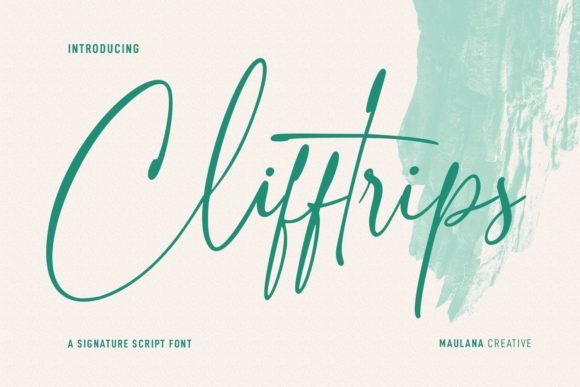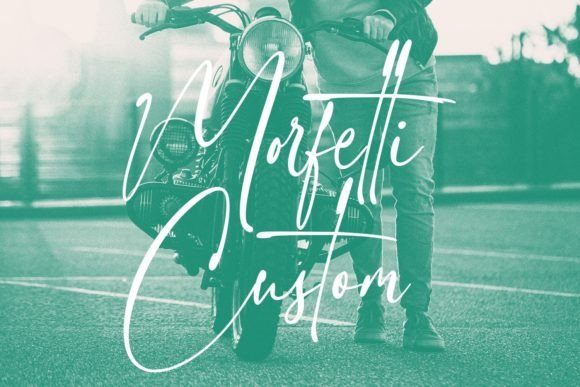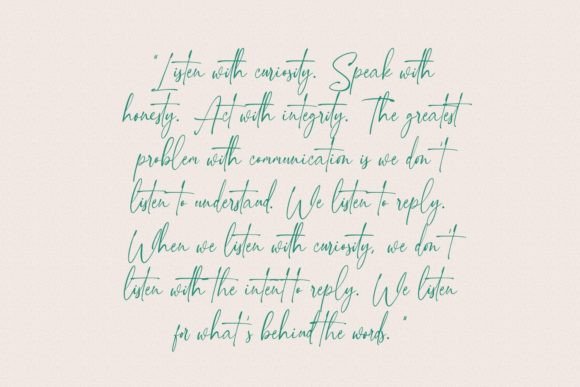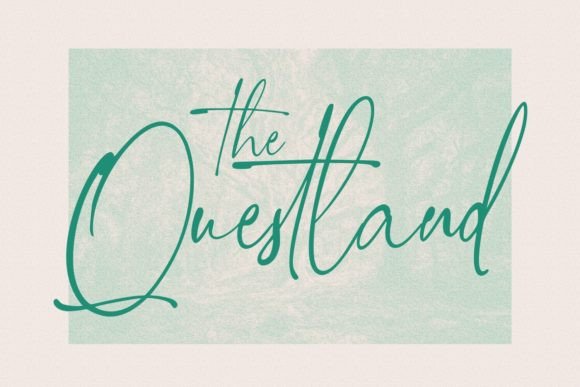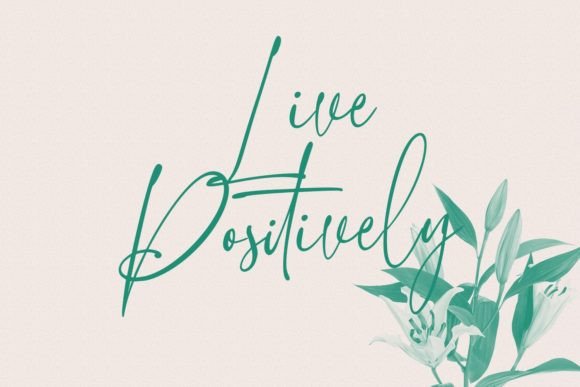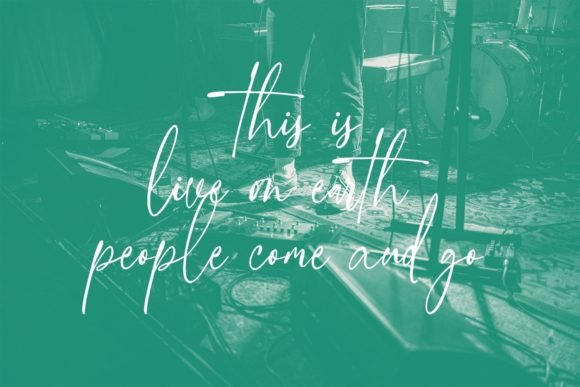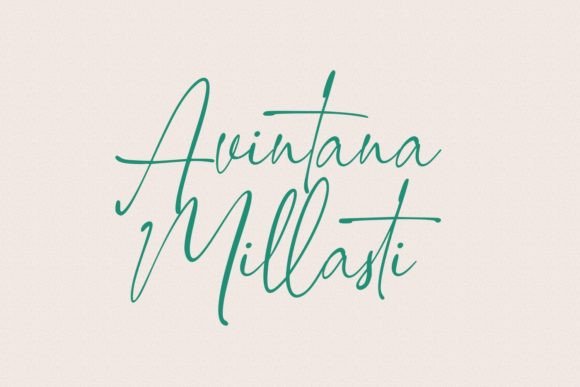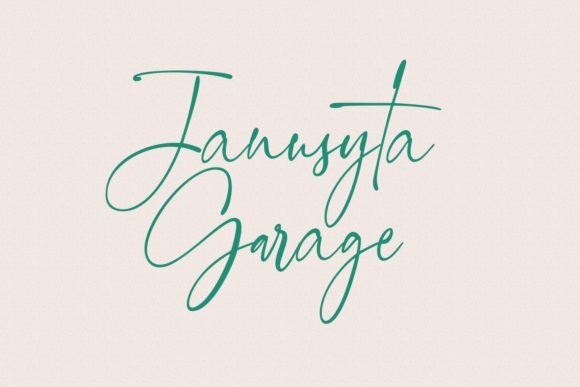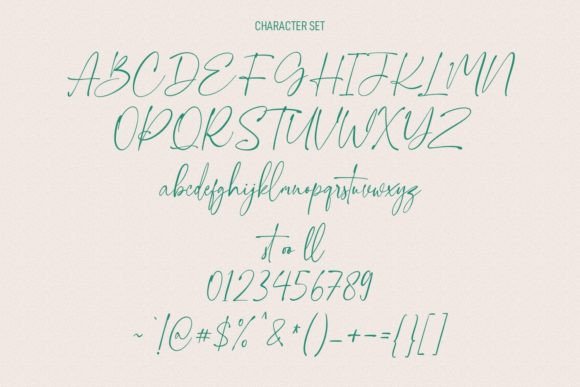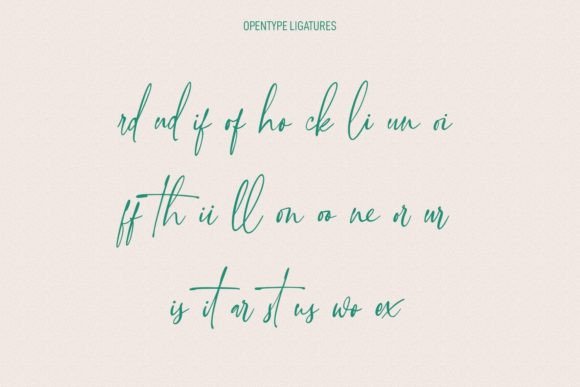
Clifftrips Font
About Clifftrips Font
Clifftons is a casual signature script font designed to bring a laid-back and personal touch to your projects. With its ink-light contrast stroke, playful characters, and thoughtful ligatures and alternates, this font is a versatile choice for a range of applications. Clifftons is particularly well-suited for logo design, social media graphics, movie titles, book titles, and works seamlessly for both short and long text passages. It also pairs harmoniously with sans or serif fonts, making it an excellent choice for your secondary text.
The casual and signature-like quality of Clifftons adds a touch of informality and warmth to your text. This makes it perfect for creating a friendly and approachable atmosphere, whether used in logos, social media posts, or book titles.
In logo design, Clifftons stands out with its unique and handwritten style. The ink-light contrast stroke adds character and depth, making your logo visually appealing and memorable.
For social media graphics, the font’s fun and playful characters contribute to an engaging and eye-catching presentation. Clifftons helps you create stunning visuals that capture the attention of your audience.
In movie titles and book titles, Clifftons brings a casual elegance that adds personality to the overall design. Its versatility shines through, adapting to different contexts while maintaining its distinctive charm.
The font’s suitability for both short and long text passages makes it a practical choice for various design projects. Whether you’re crafting a headline or composing a longer piece of text, Clifftons ensures readability and style.
In conclusion, Clifftons is more than just a font; it’s a design asset crafted to make your work stunning. Whether used for logos, social media, movie titles, or books, this casual signature script font adds a touch of personality and charm to your projects, ensuring they stand out with a delightful and unique appeal.